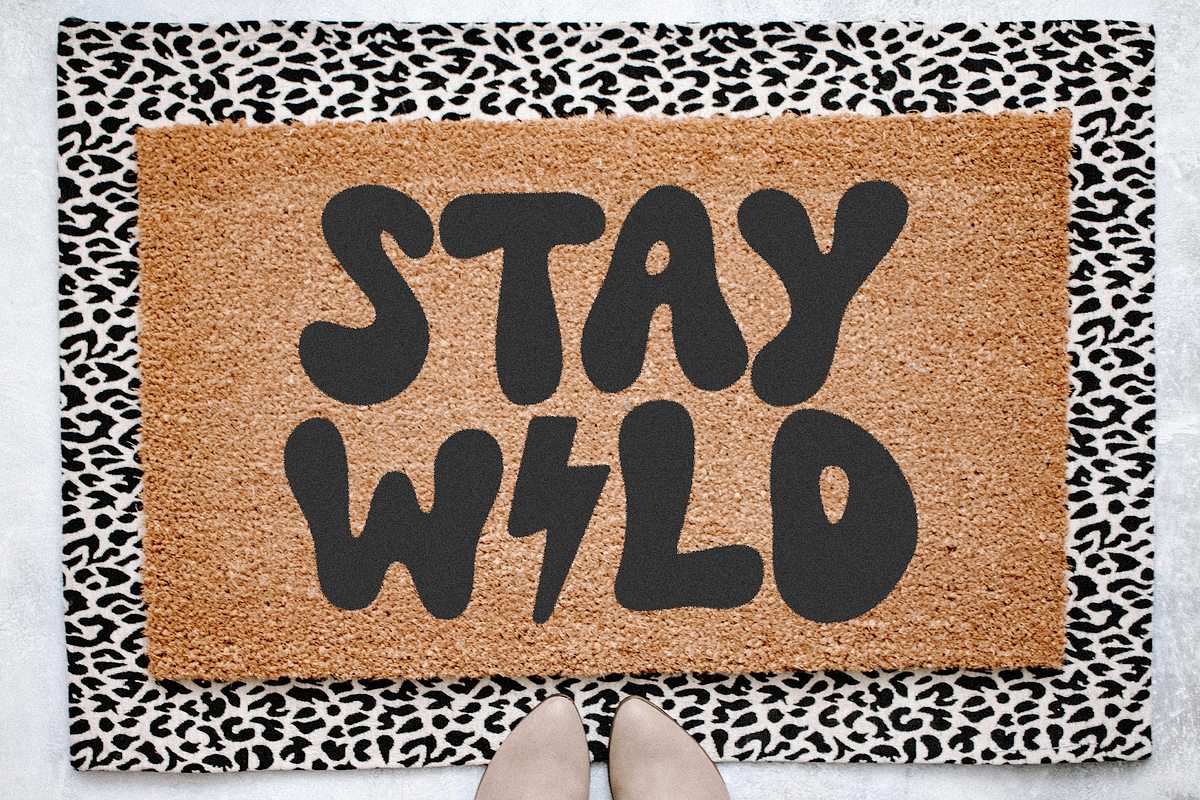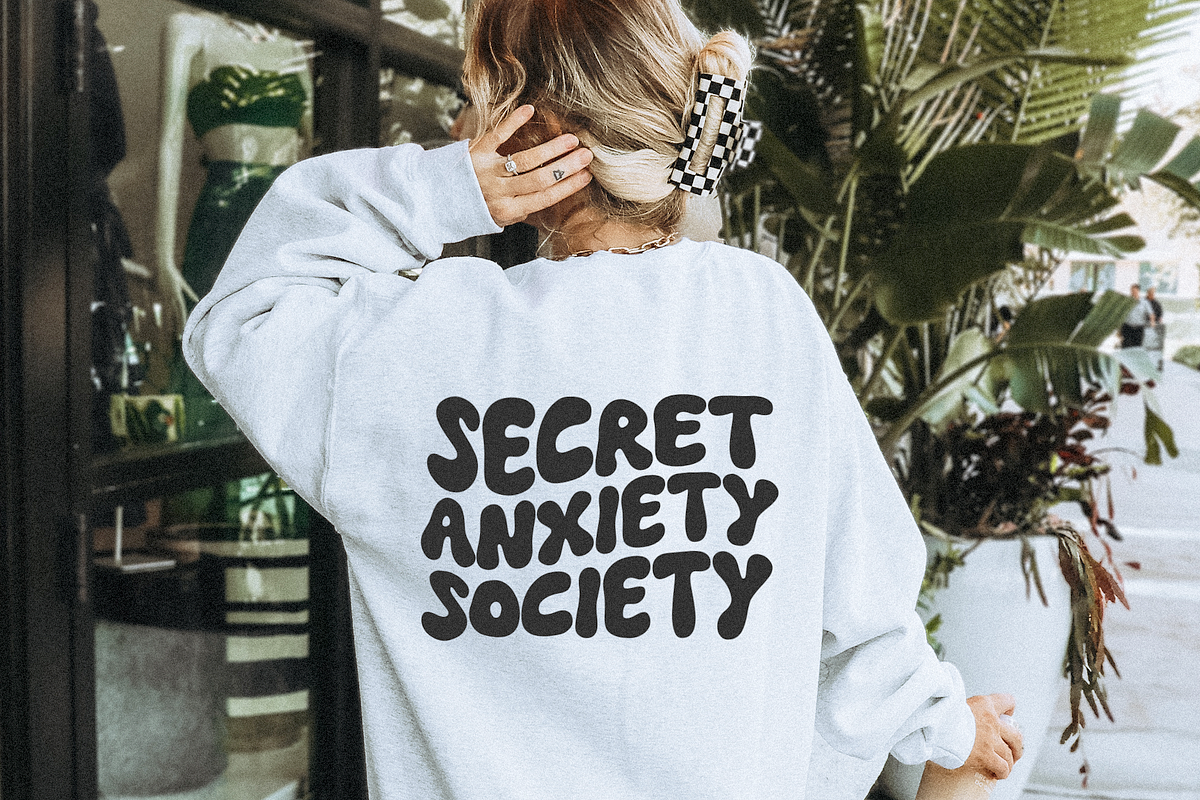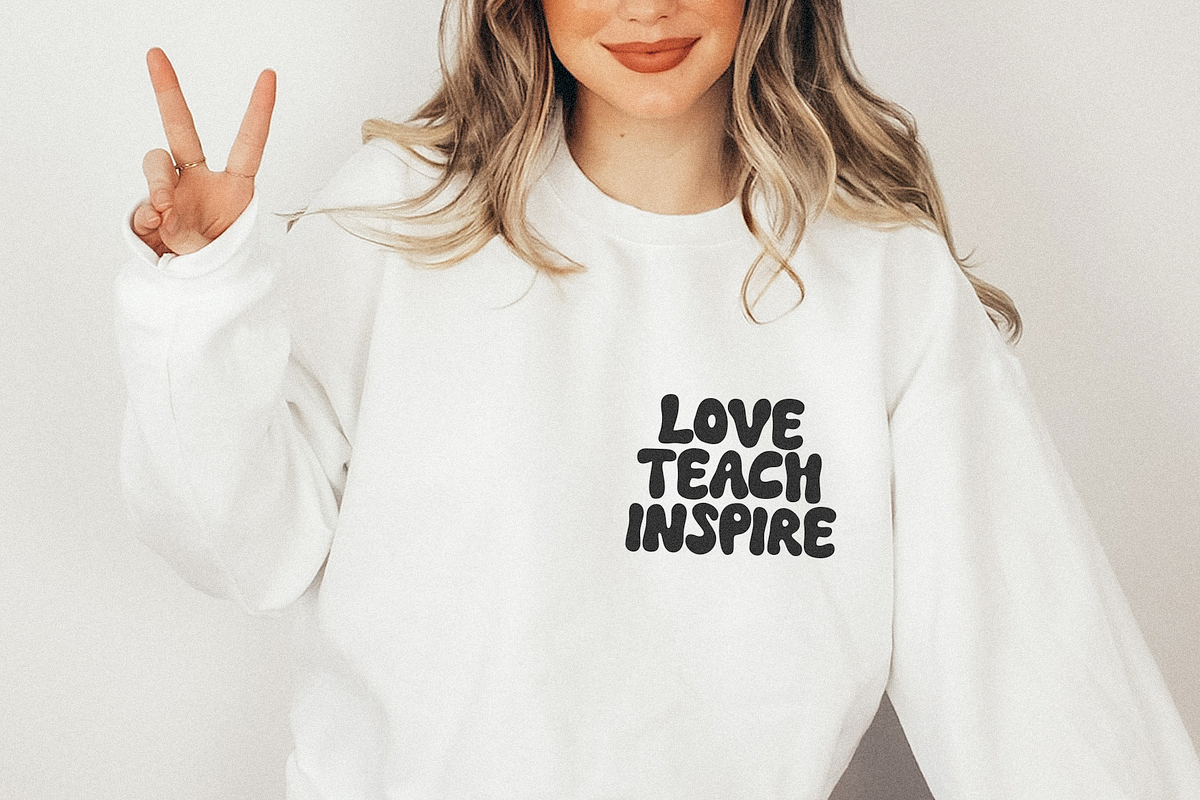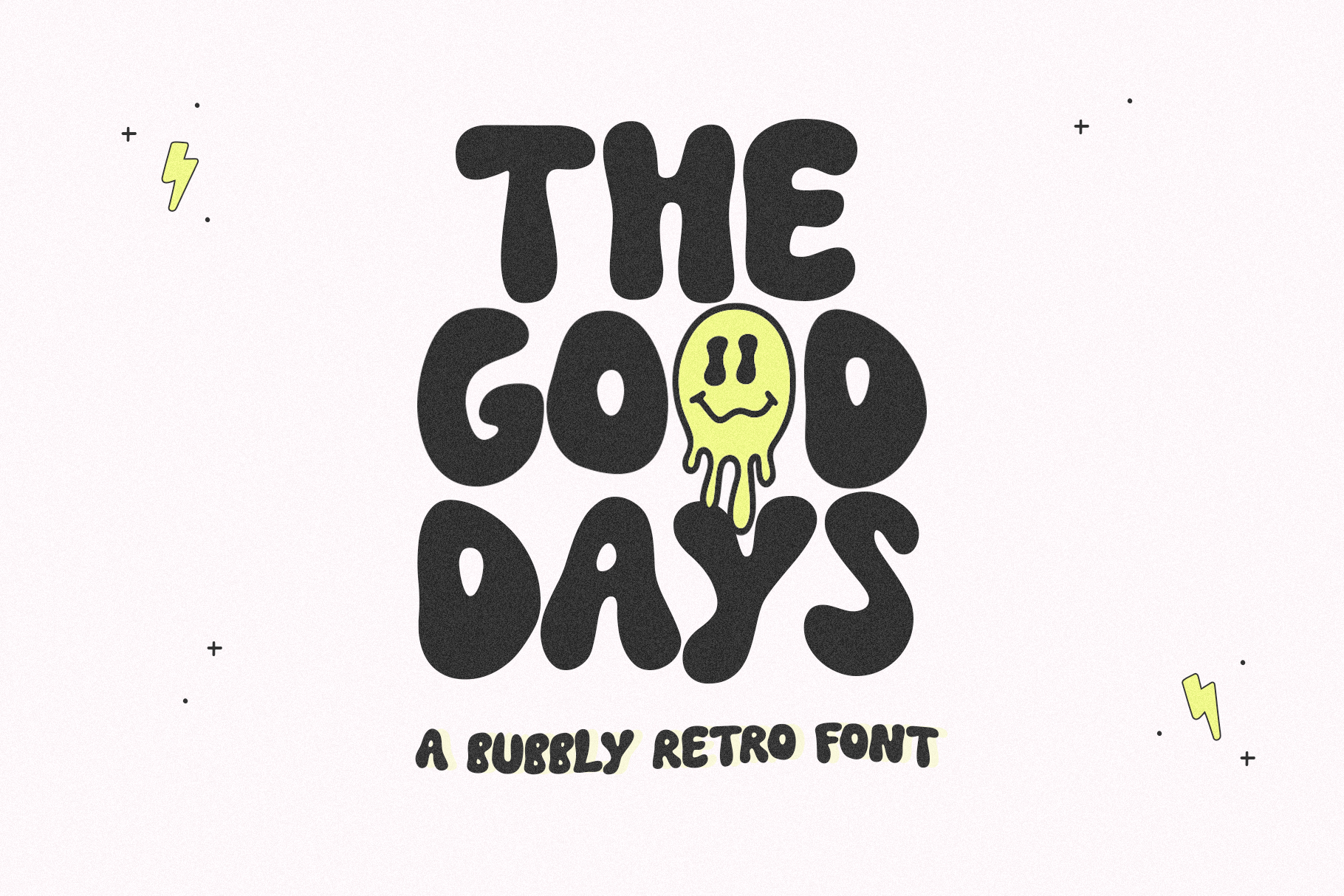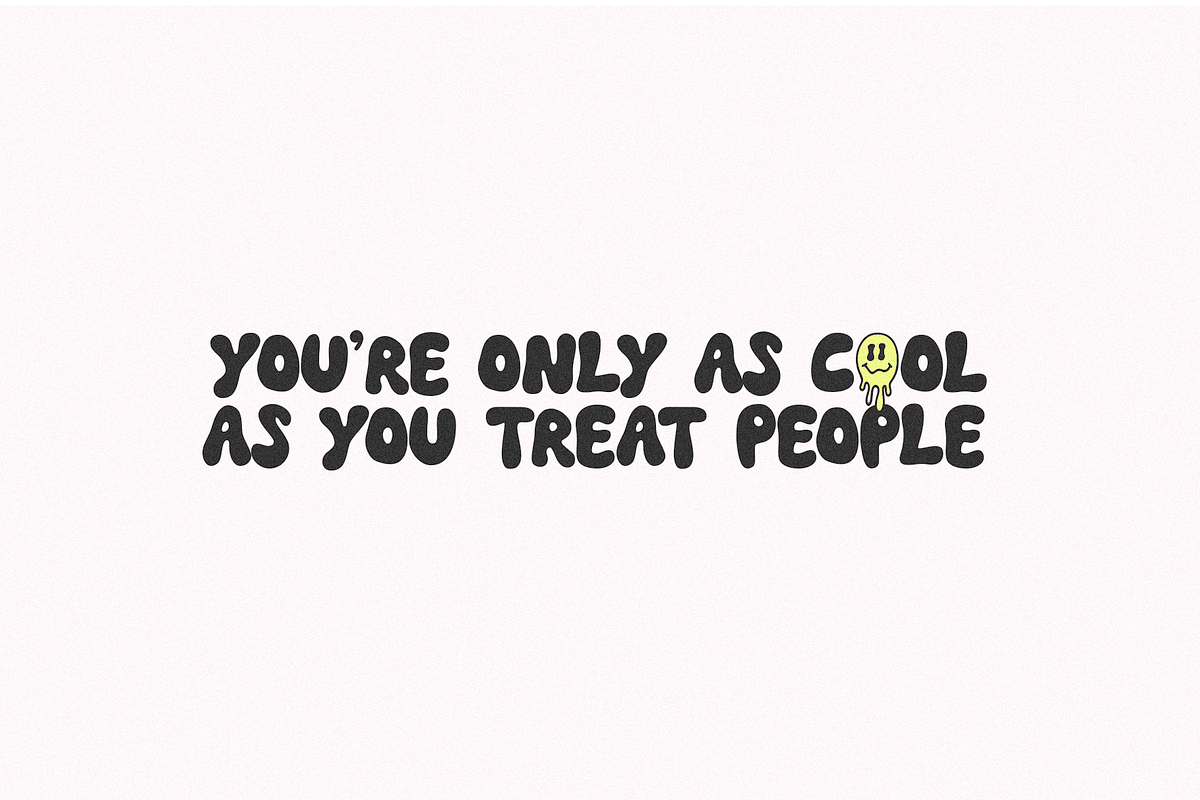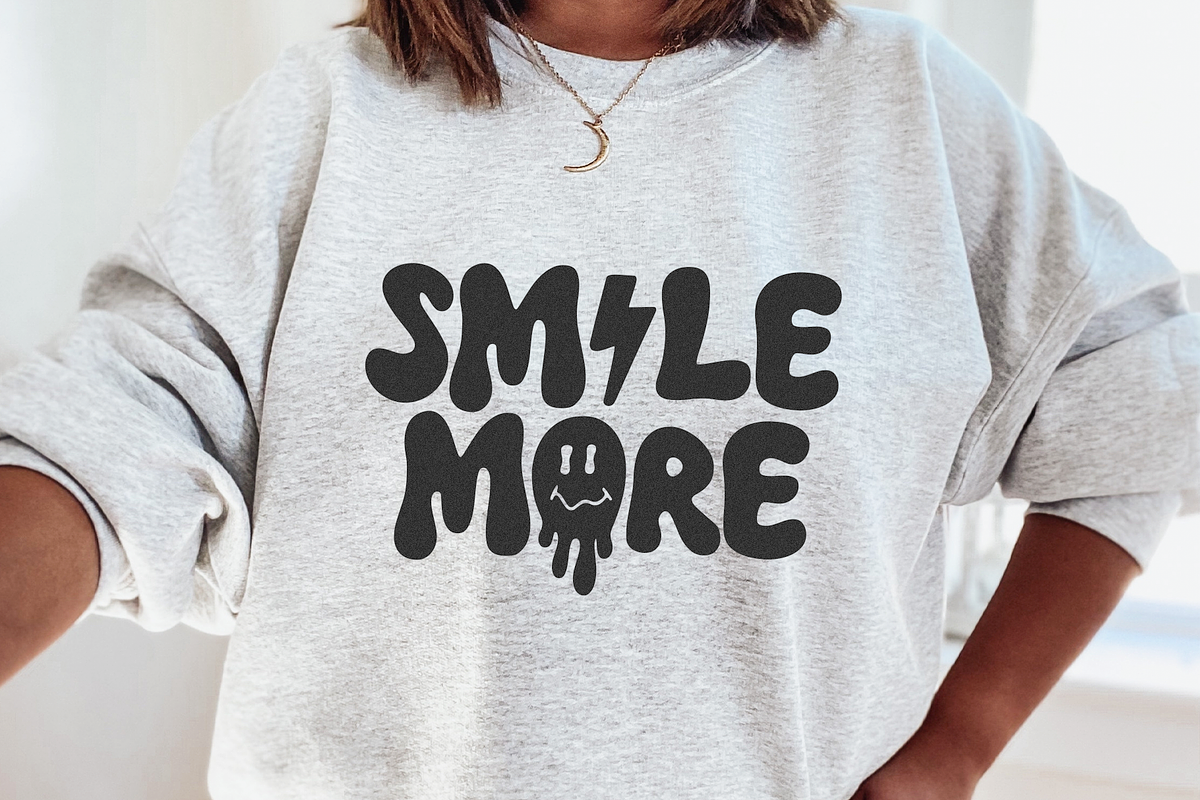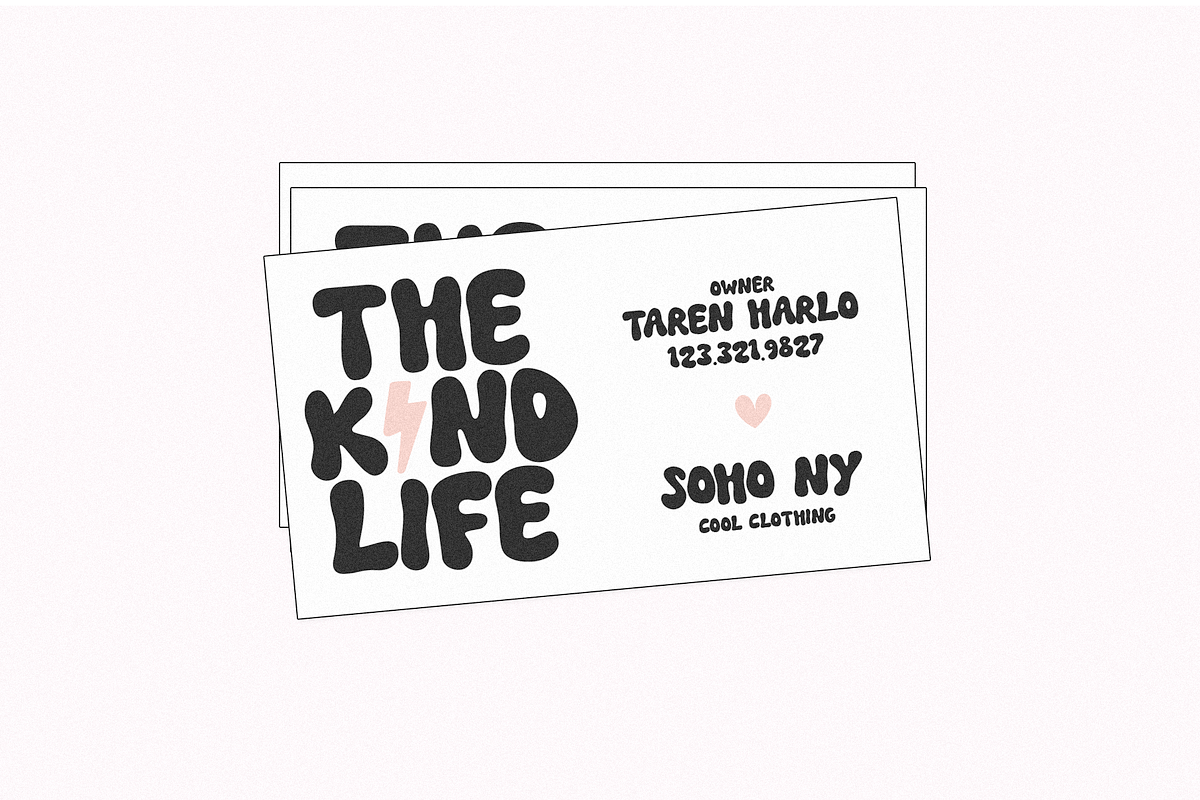
The Good Days | Retro Font
The Good Days is a bubbly retro font.
This font is perfect for your design projects, graphic tees, stickers, procreate, retro designs, svg files, cricut projects, mugs, logos and more!